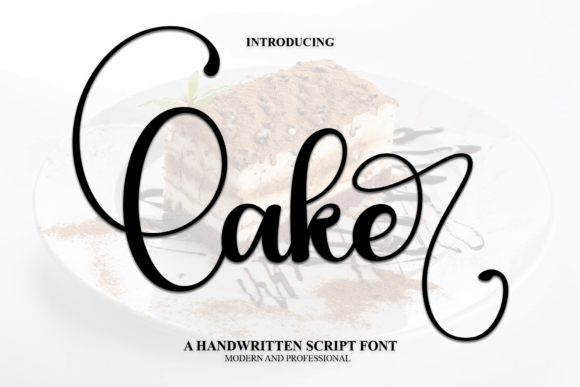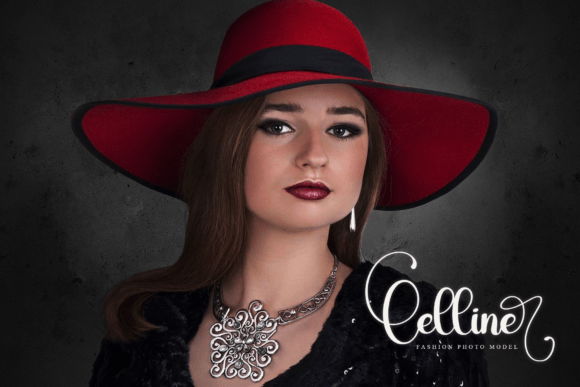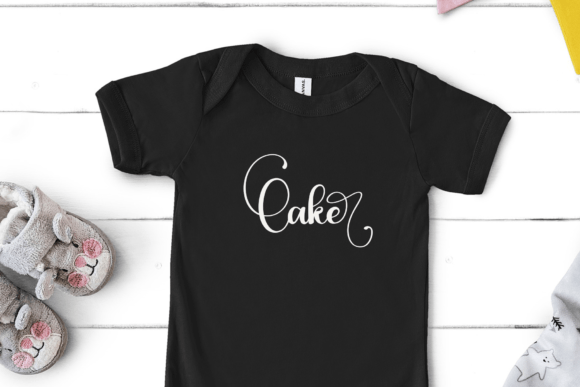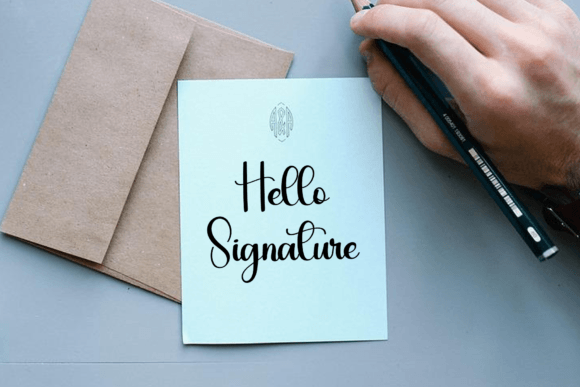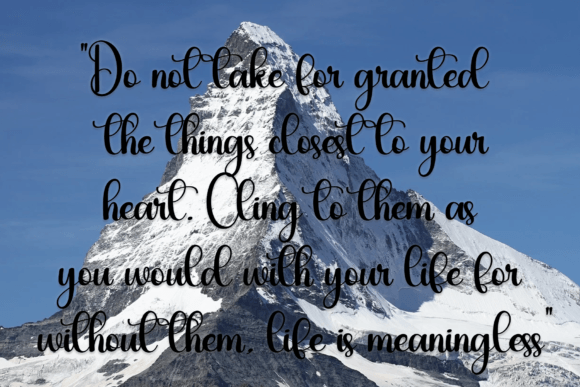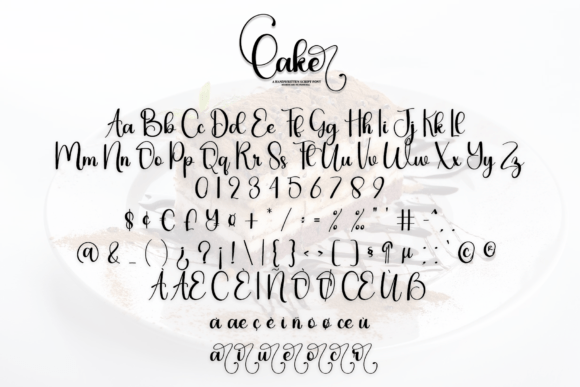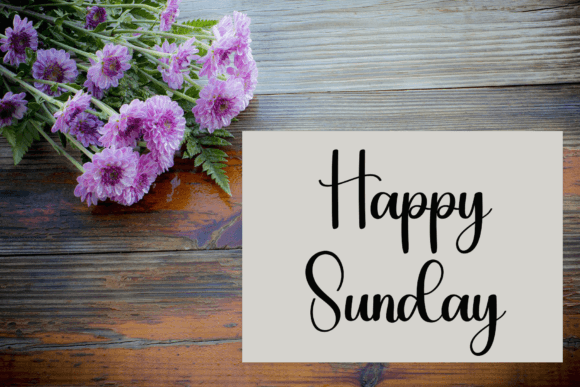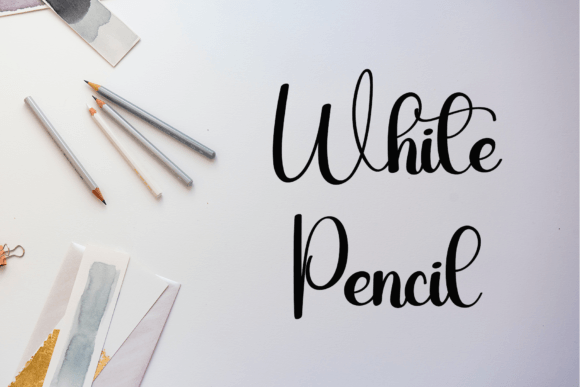
Cake Font
About Cake Font
Cake is a sweet and cursive handwritten font designed to bring a delightful and romantic touch to a variety of design projects. With its gentle and flowing letterforms, this font is a perfect choice for branding, logos, wedding materials, greeting cards, fashion-related designs, lookbooks, marketing promotions, and any project where you want to achieve a blend of fancy elegance and casual charm.
The cursive and handwritten style of Cake adds a joyful and romantic vibe to your text. Its gentle strokes create a flowing and graceful appearance, making it well-suited for projects that demand a touch of sophistication with an approachable and informal feel.
In branding and logos, Cake brings a unique and elegant flair. The cursive script adds a personalized and stylish touch, making it suitable for businesses or products that aim to convey a sense of sophistication and charm.
For wedding materials, Cake enhances the romantic atmosphere. Whether used in invitations, place cards, or other wedding-related designs, the font contributes to a warm and inviting aesthetic, perfect for celebrating love and joyous occasions.
In greeting cards and fashion-related designs, Cake adds a sweet and stylish element. The cursive and romantic character of the font makes it a standout choice for conveying heartfelt messages or showcasing the latest trends with an elegant touch.
For marketing promotions and lookbooks, Cake brings a touch of fancy elegance. Its versatility allows it to adapt to various design contexts, making your promotional materials visually appealing and memorable.
Whether used in a formal or casual setting, Cake is ready to elevate your projects with its sweet and cursive handwritten style. It’s a font that brings a blend of joy, romance, and elegance to your designs, making them stand out with a delightful charm.